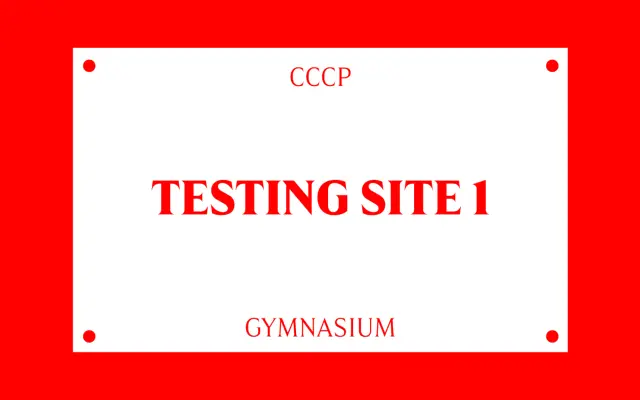
F37 Drago
F37 Foundry · Rick Banks, Rodrigo Fuenzalida, Ryan Williamson, Luke Charsley · 2021
A modern display serif revived from Hermann Ihlenburg's 1892 Columbus, drawn with a tilted axis and unusual ball terminals for distinctive headlines.
A modern serif by Rick Banks and team that revives Columbus, an 1892 titling face by German punch cutter Hermann Ihlenburg, after F37 spotted it in 1970s Jaguar press ads. F37 stripped out the old ornate flourishes and erratic terminals, kept the wonky g and other oddities, and added a tilted variable axis with separate Tilted weights. Sixteen styles run across four weights from Light to Bold with matching Tilted and italic cuts. Best for fashion, editorial and identity work that wants a serif with personality rather than the standard editorial polish.
F37 describes Drago as a modern serif with an ancient history, inspired by Columbus, a Hermann Ihlenburg titling face originally designed in 1892 and spotted by F37 in 1970s Jaguar press ads. The release introduces a tilted variable axis and standalone Tilted weights, with nods to 1960s display faces like Trooper Roman and Bernase Roman.